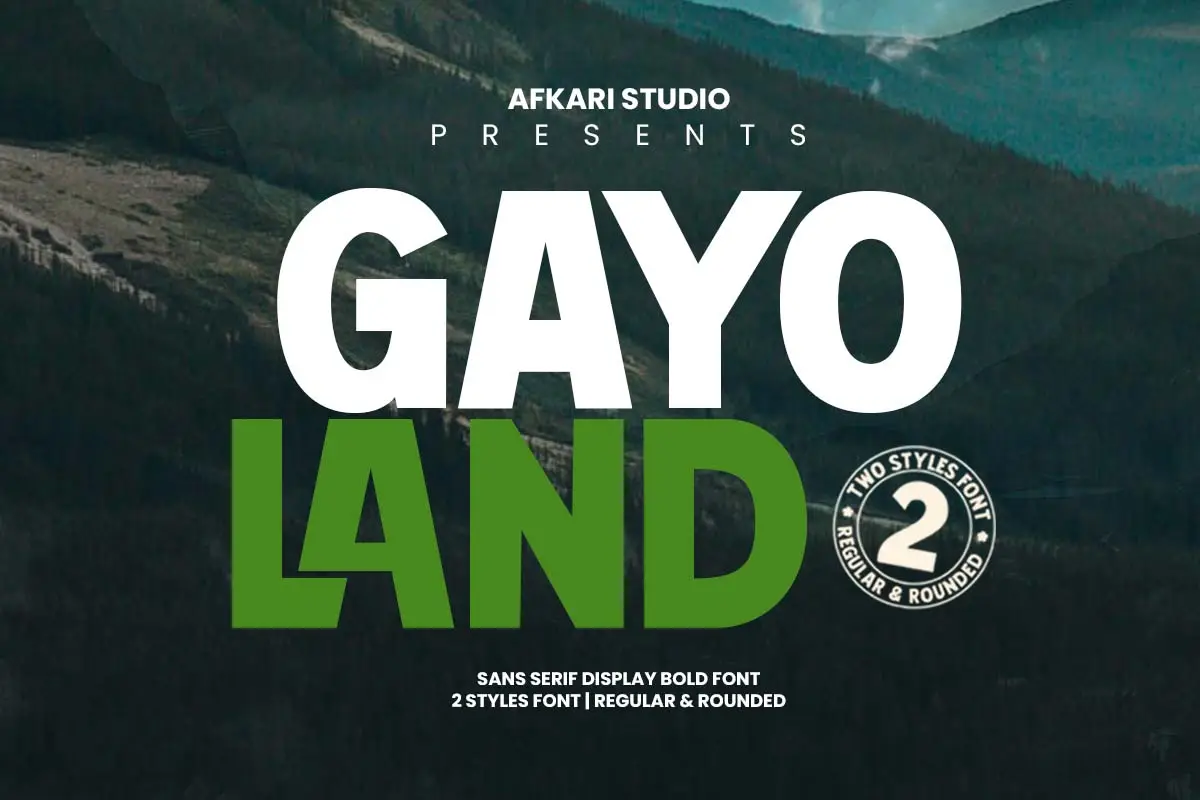
Introducing Gayo Land FFree Sans Serif Display Bold Font – a retro-inspired typographic masterpiece designed to make a statement with its bold, vintage charm.
Gayo Land blends contemporary aesthetics with a touch of nostalgia, ideal for headings, titles, and logos that demand attention and recall.
With its bold design, Gayo Land adds personality to any project, whether it’s a website, poster, or branding endeavor.
Experience Gayo Land’s timeless appeal and versatility:
– Uppercase, Lowercase, Numbers, and Punctuation
– Special alternates and ligatures
– Mültîlíñgúãl Sùppört: ä ö ü Ä Ö Ü ß ¿ ¡
Gayo Land Free Sans Serif Display Bold Font